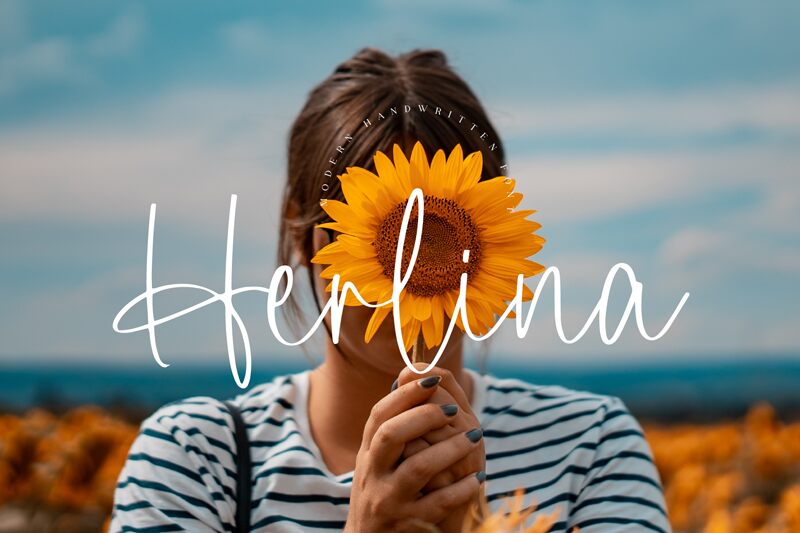
Herlina is a charming, handwritten font designed by Revo Farisky that exudes a warm and personal touch. Its timeless design makes it suitable for a wide range of projects, from wedding invitations and greeting cards to branding materials and product packaging. Herlina's smooth lines and flowing strokes add an elegant dimension to any project, while its versatility allows it to adapt effortlessly to different font weights and styles. Whether you're looking for a bold or delicate typeface, Herlina has got you covered. Bring your designs to life with the captivating charm of Herlina!